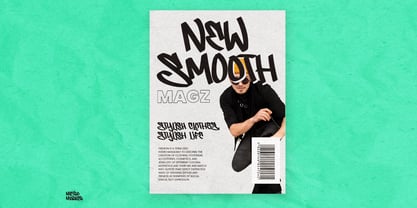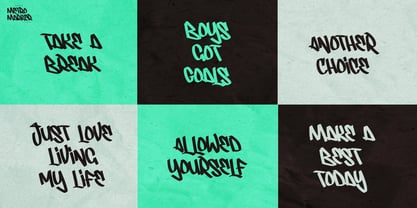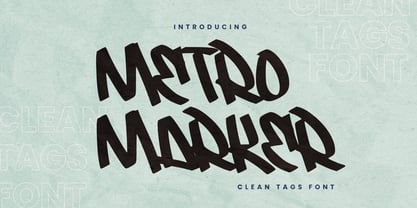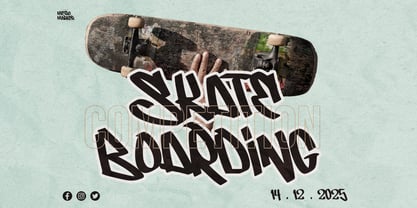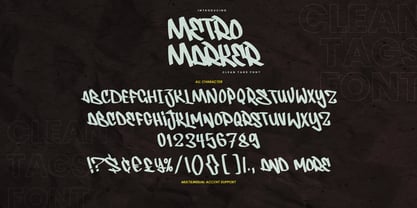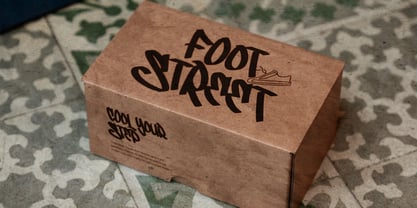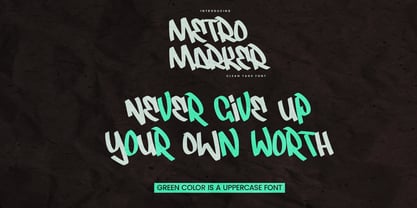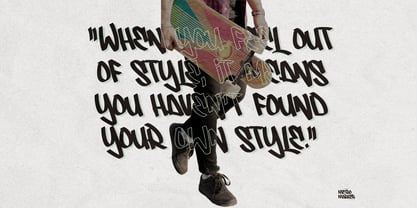
Metro Marker
by Gassstype
The Metro Marker Font Family was designed by Abdul Malik Wisnu and published by Gassstype. Metro Marker contains 1 styles. More about this family
Metro Marker is a bold and expressive hand-drawn display font inspired by urban lettering, street tags, and spontaneous marker strokes. Its raw shapes, energetic lines, and imperfect details create an authentic handmade feel while maintaining a strong visual presence. Designed for eye-catching typography, Metro Marker is perfect for logos, posters, apparel, album covers, branding, packaging, social media graphics, headlines, stickers, and street-inspired designs. With its bold personality and dynamic hand-drawn character, Metro Marker adds an edgy, creative, and contemporary touch to any project. Metro Marker features bold strokes, raw energy, and an urban attitude.
Designers: Abdul Malik Wisnu
Foundry: Gassstype